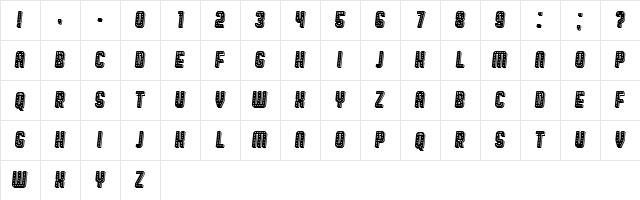
Broadway Shadow Italic
Design Context for Broadway Shadow Typeface
Broadway Shadow brings ornamental detail and strong personality to headlines and identities, where visual impact matters more than quiet functionality. The dynamic lean of this cut emphasises speed and emphasis in any layout.
Font Pairing: Pair with a clean neutral sans-serif for body copy to let Broadway Shadow's character lead without overwhelming the composition.
Pro Tip: Use Broadway Shadow exclusively at display sizes — it was designed to be seen, not read at length. Let a neutral companion handle body copy.